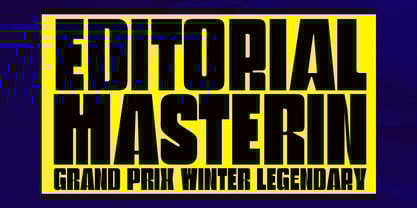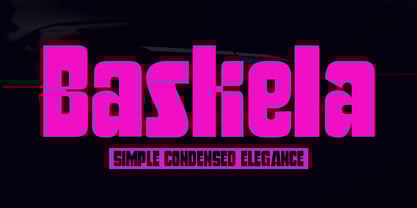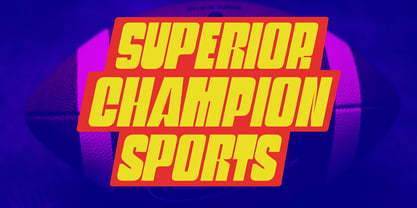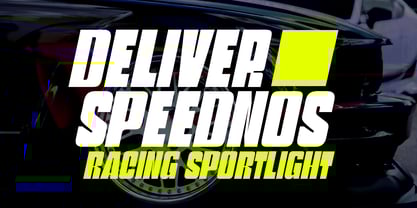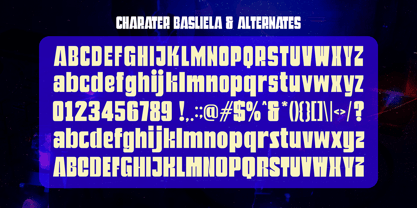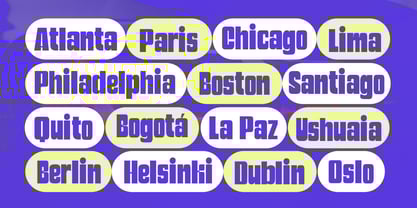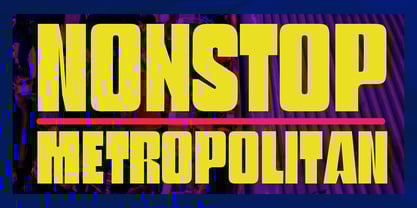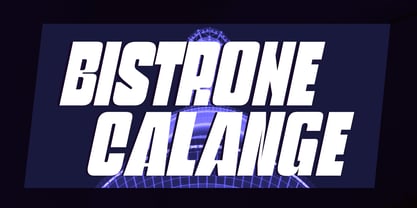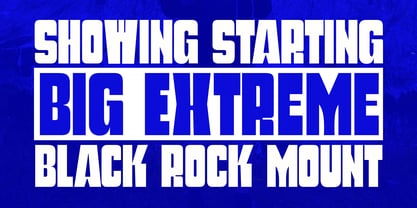
Baskela Display
The Baskela Display Font Family was designed by khaidir and published by Gatype. Baskela Display contains 2 styles and family package options. More about this family
Introducing the Baskela Display font, perfect for logos, branding, greetings, social media themes, and wedding invitation designs. This font is also great for titles due to its sleek design and attractive appearance. Available in both regular and italic styles, it's easy to use for your latest and future projects. If you have any questions, please feel free to contact me! Thank you!